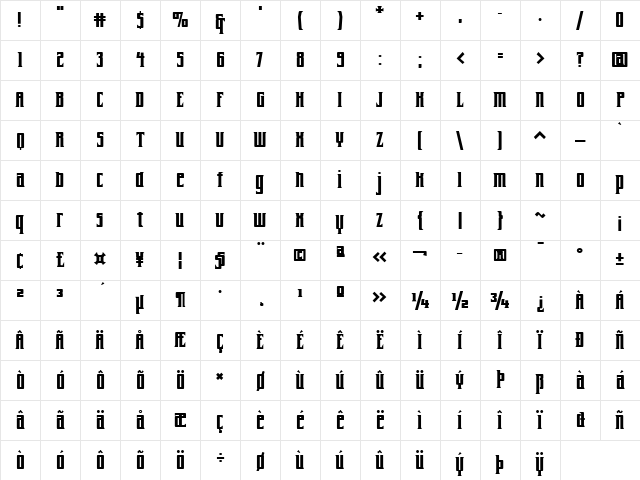
Complete Farrier ICG Bold glyph index. Displaying only characters natively supported by Farrier ICG Bold font.
Farrier ICG is a composed and adaptable typeface that performs quietly and consistently across a wide range of design contexts. Its bold stroke weight gives it real presence on the page.